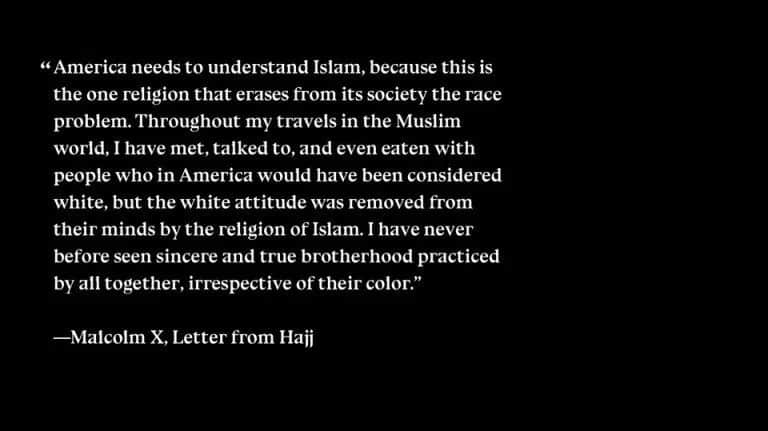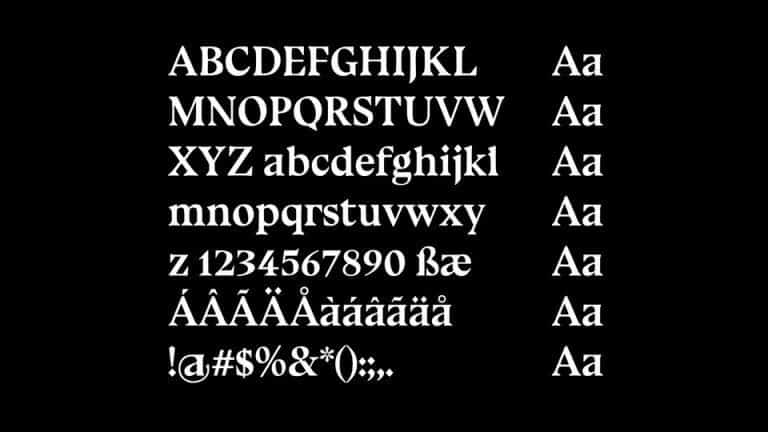
Blue Ocean Serif Font
Introducing Blue Ocean Serif Font– modern sans serif and minimalist character!. This typeface is a variable font fork of Bluu Next by Jean-Baptiste Morizot, redrawn in quadratic curves by Eli Heuer. This font is a versatile font and is perfect for any modern project including branding designs, logos, invitations, website designs, Instagram, business cards, and more!